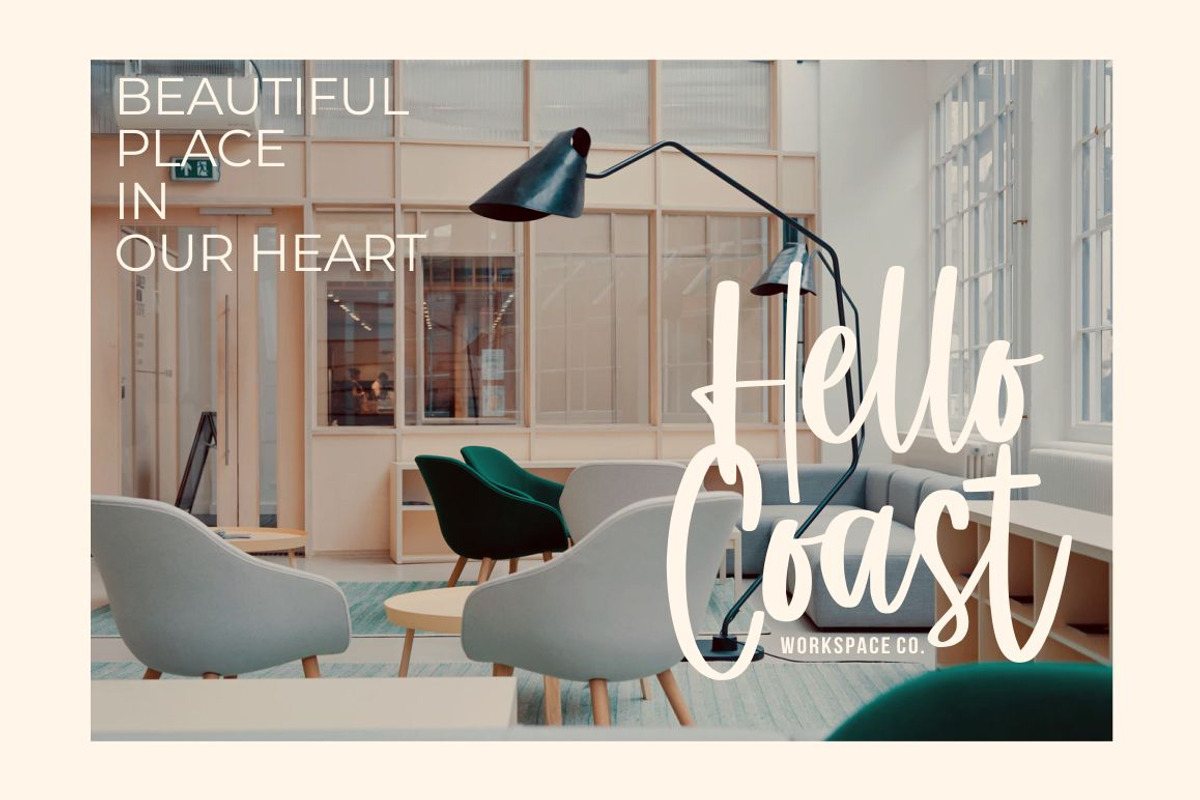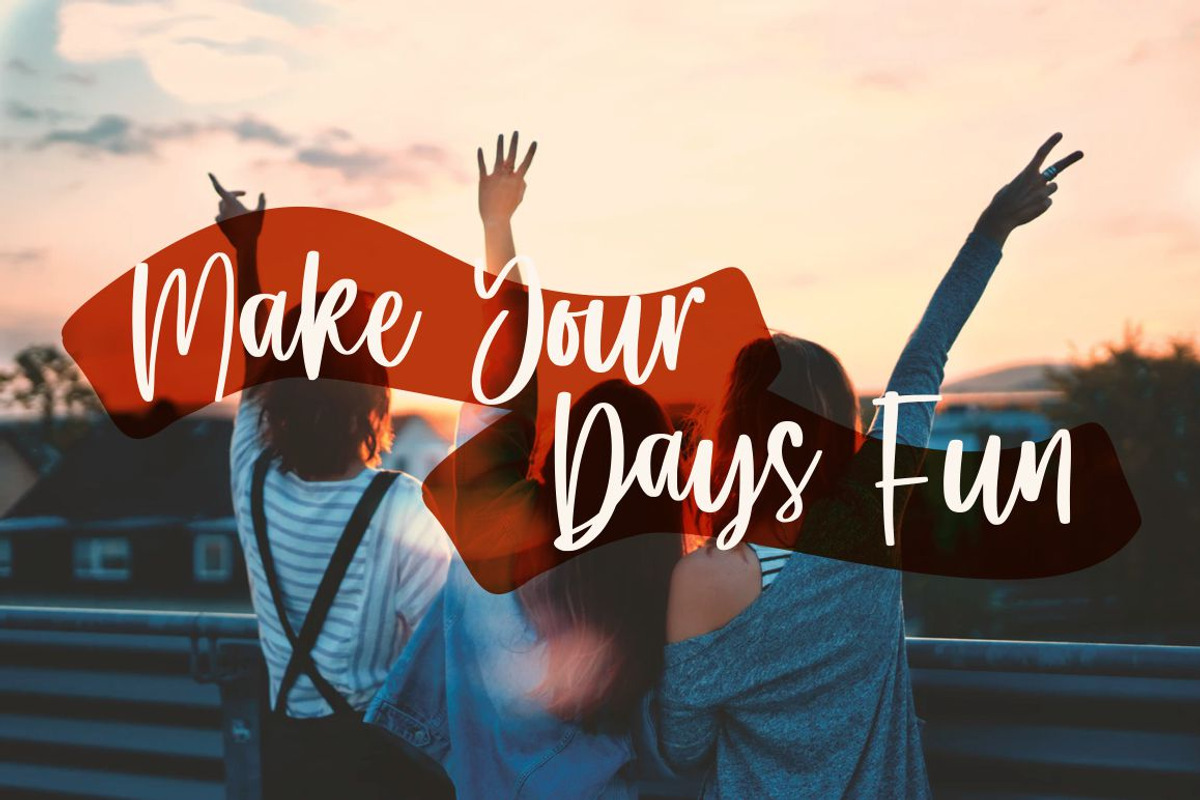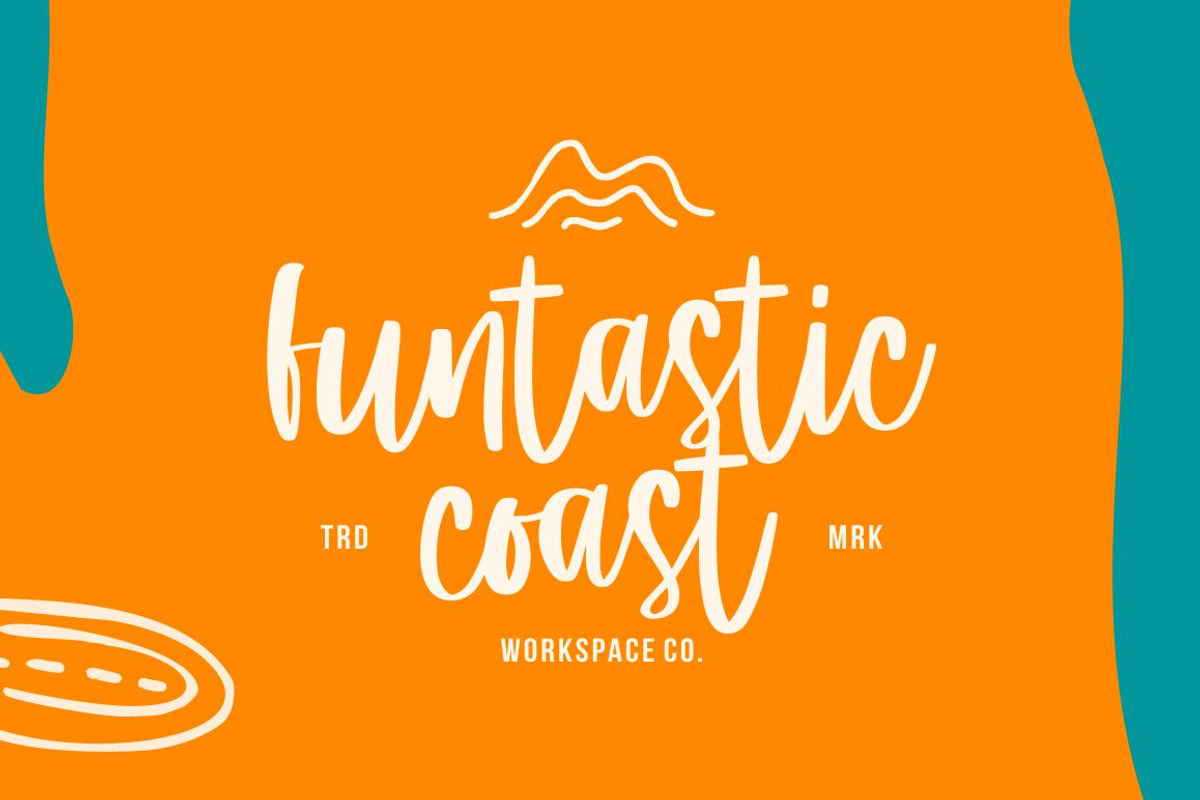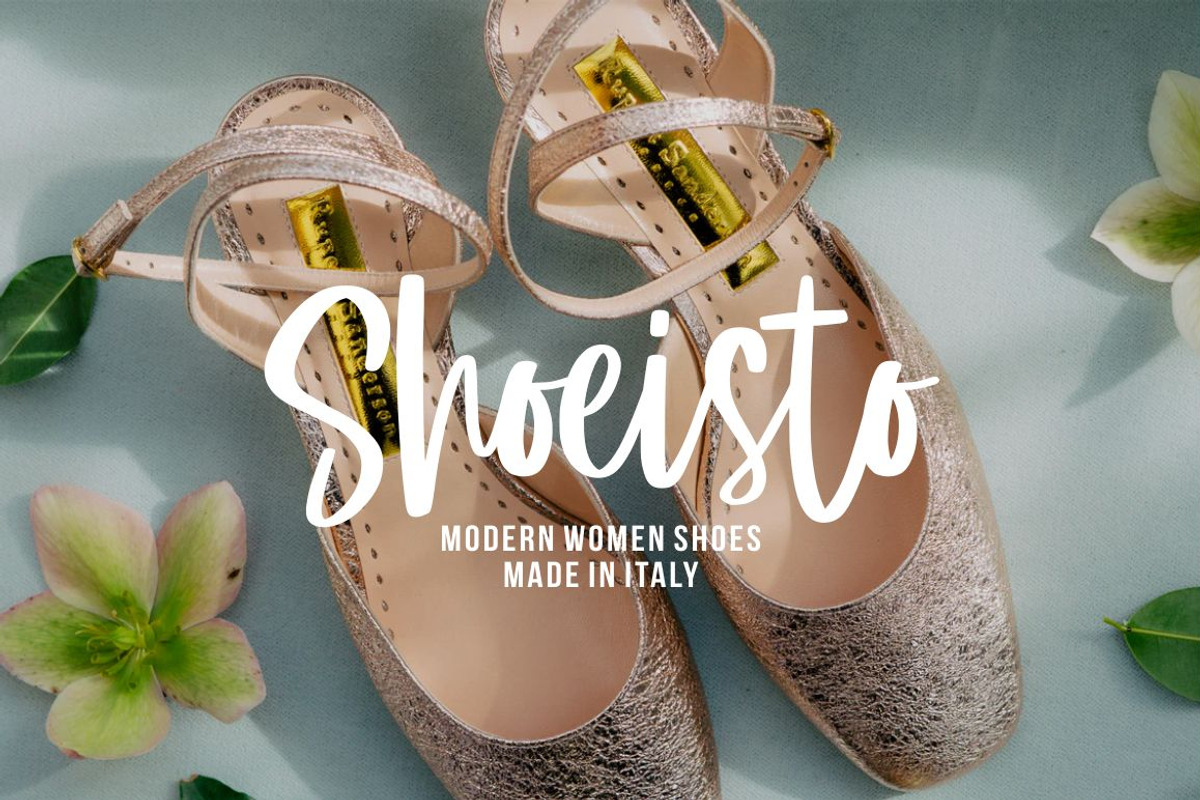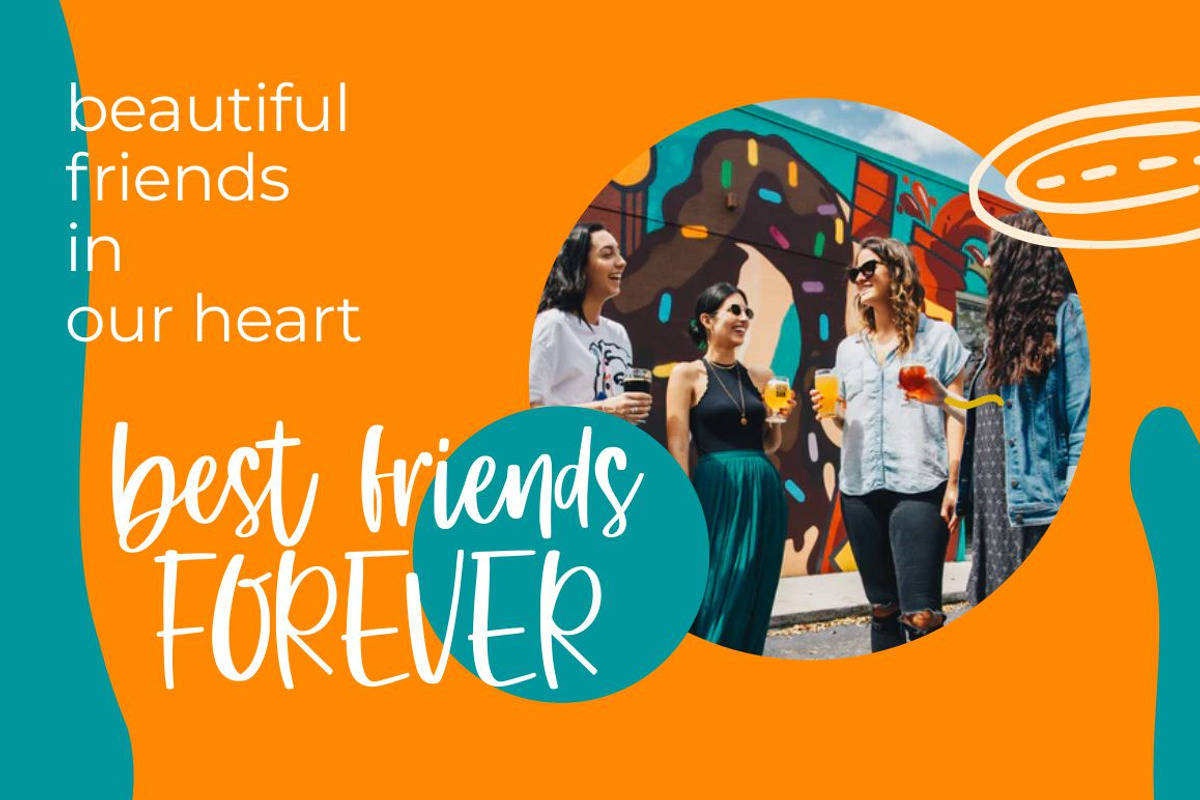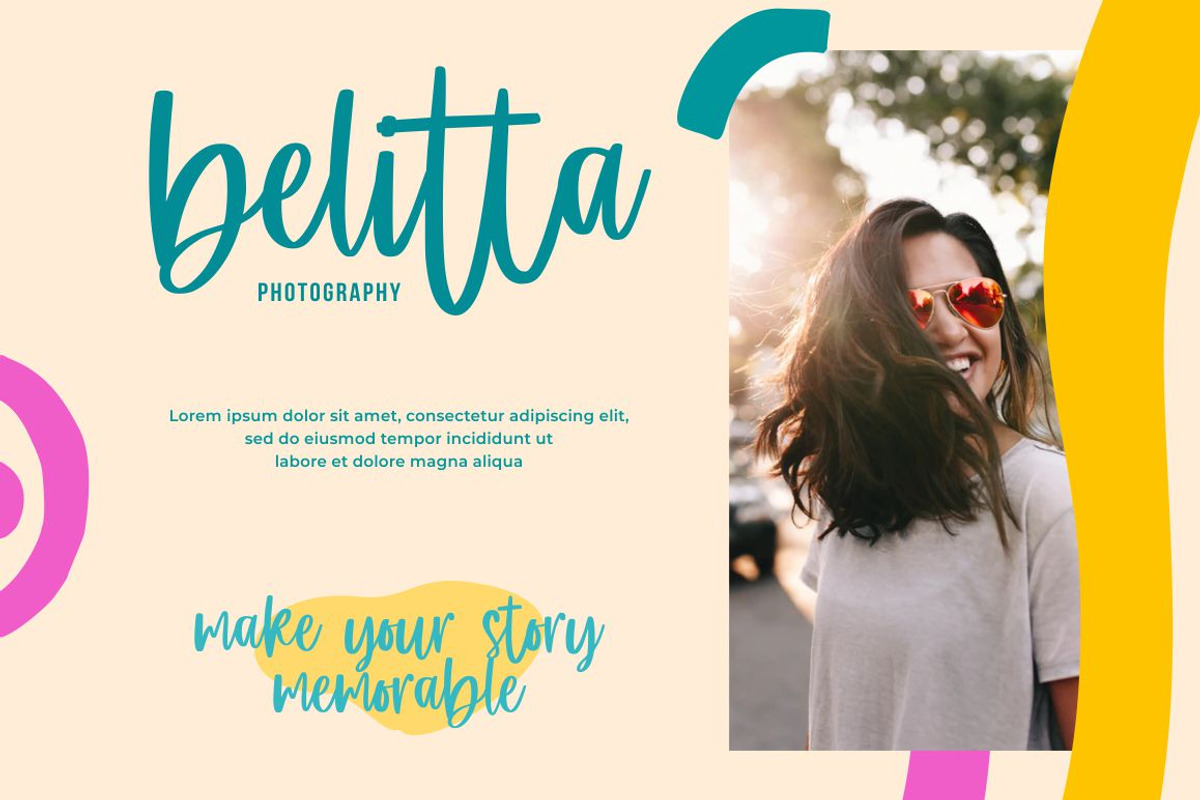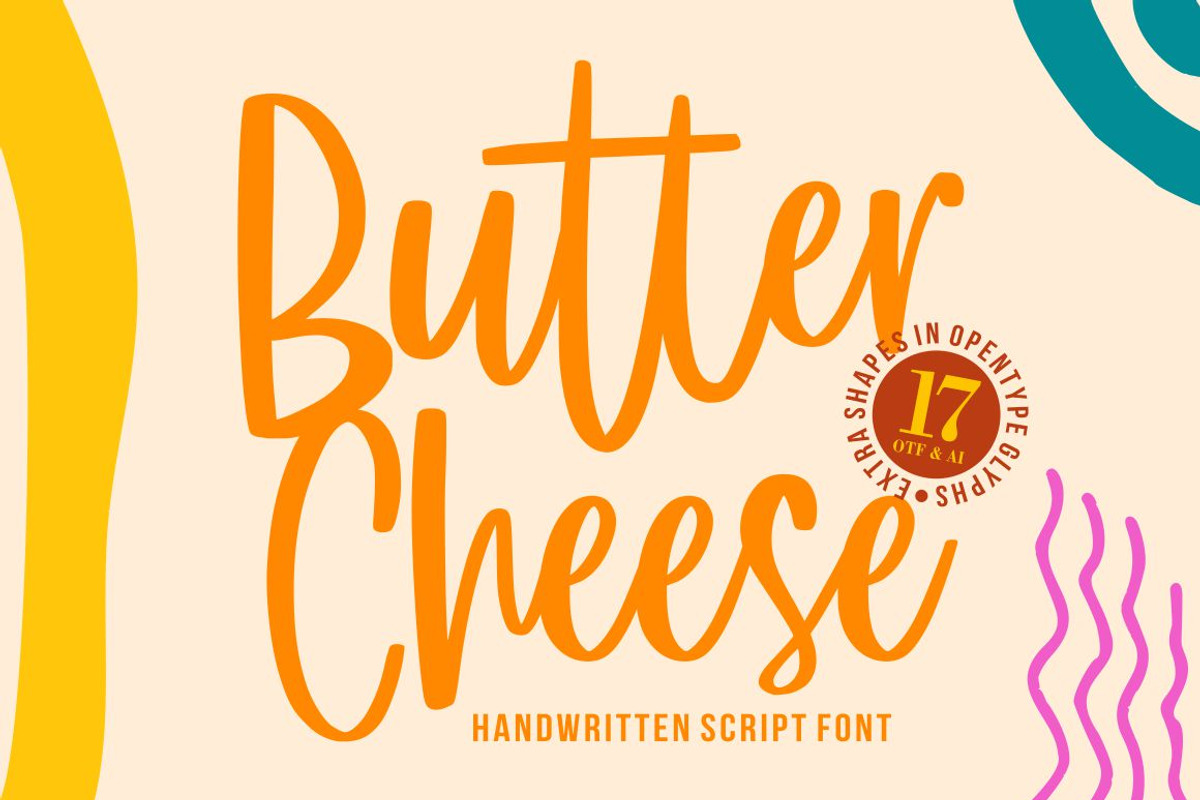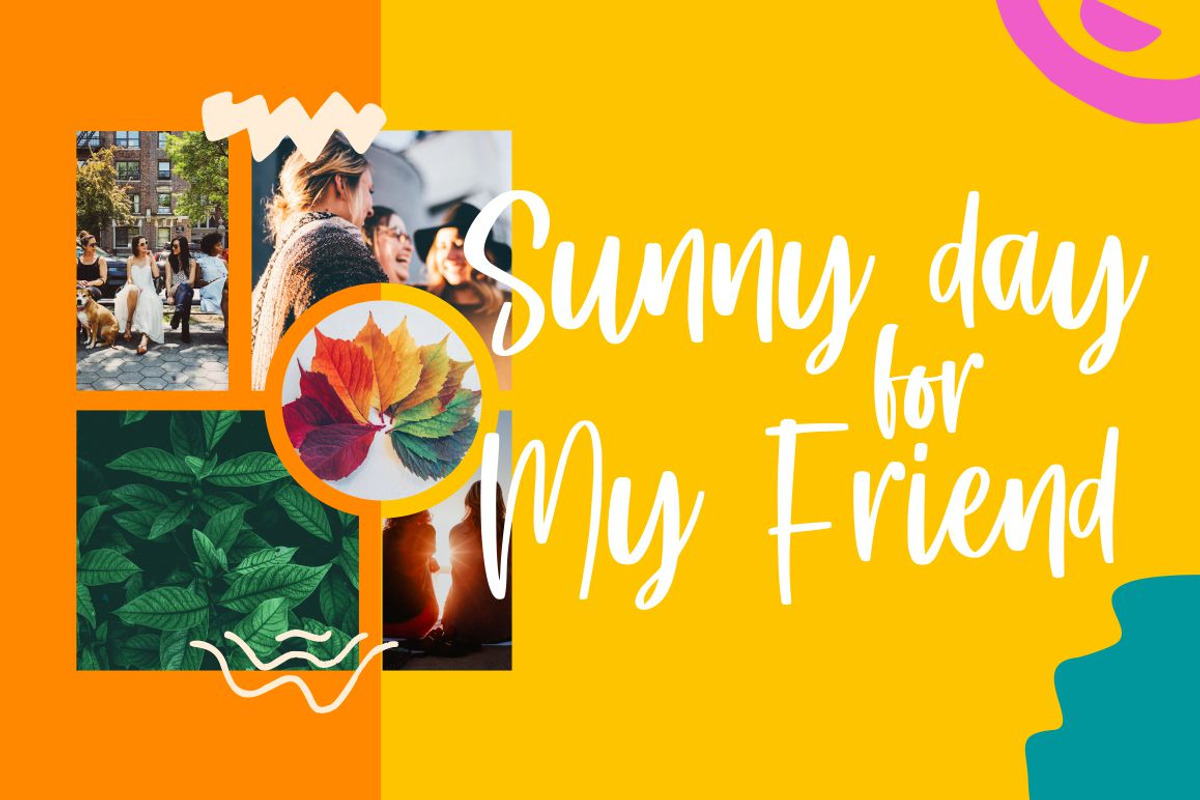
Butter Cheese - Handwritten Font
Butter Cheese - Handwritten Font is a natural & modern handwritten font. I'ts Perfect for logo, invitation, stationery, wedding designs, social media posts, advertisements, product packaging, product designs, label, photography, watermark, special events or anything. This font include : Butter Cheese OTF-TTF-WOFF, Ligatures, and also Multilingual support.
EXTRA SHAPES (OTF & AI)
Very great for branding, logotype, handletteing, invitations, or fashion branding.
Why Butter Cheese - Handwritten Font is worth a look
Butter Cheese - Handwritten Font by Good Java Studio fits naturally into Branding, posters, packaging, typography.